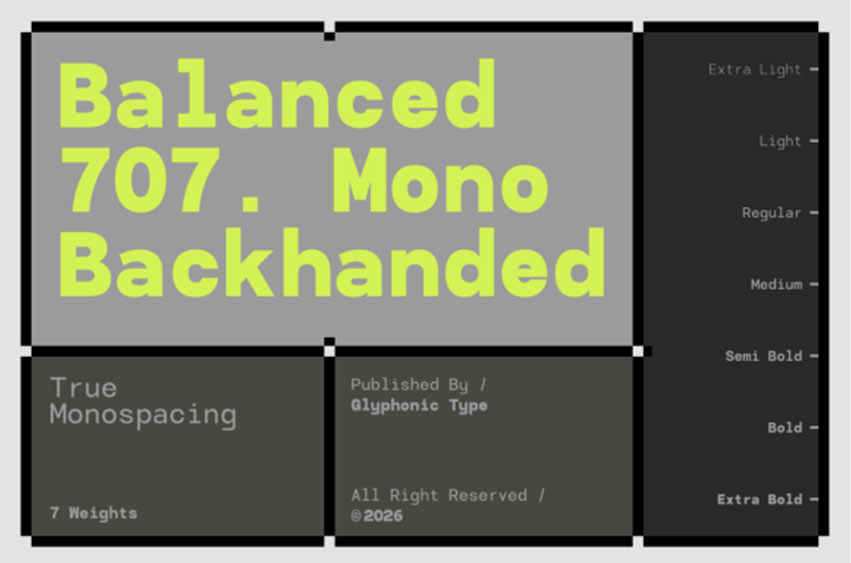
Balanced 707 Mono Backhanded Font True Monospacing Font Family. Forge a crisp, hyper-calculated technical aesthetic with Balanced 707 Mono Backhanded, a masterfully engineered typeface. Built on a strict grid system that guarantees absolute True Monospacing, this heavy-duty, reverse-contrast geometric slab font family swaps out standard curves for rigid corners, block mechanics, and raw industrial tracks.
Featuring an extensive utility system spanning 7 precision-tuned weights—from Extra Light, Light, Regular, Medium, Semi Bold, Bold, to Extra Bold—it adapts flawlessly from dense layout code to high-visibility editorial branding.
Balanced 707 Mono Backhanded is the premier choice for cybersecurity branding, programmer terminal interfaces, brutalist publication layout grids, high-tech engineering logos, tactical equipment labels, and bold digital headlines.